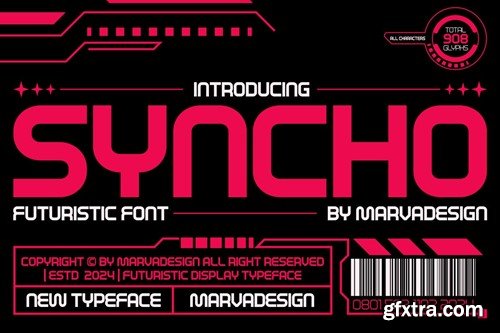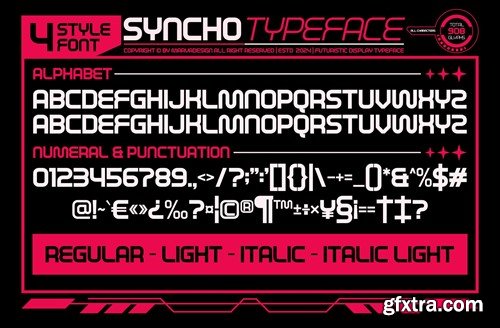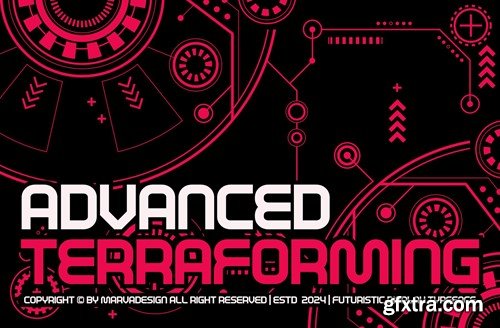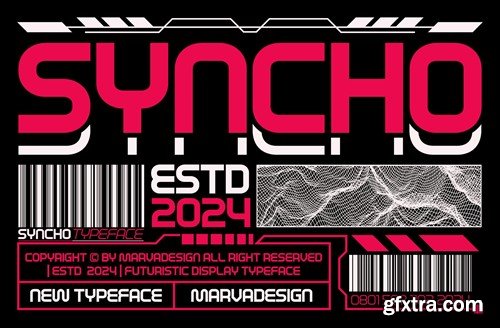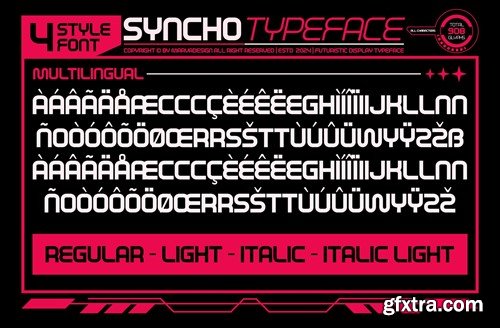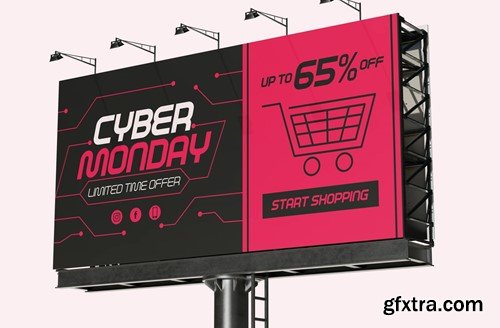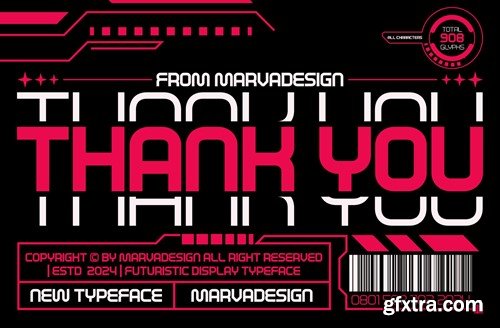
Synco - 一款现代未来主义字体 KC774AU
Syncho - A Modern Futuristic Font KC774AU
Syncho - A Modern Futuristic Font
Introducing our new product Syncho Font - A Modern Futuristic Font authentic display font. The font is suitable for any branding project like logo, Template Design, Product and many more. outstanding in a wide range of contexts.
• Uppercase
• Lowercase
• Multilingual
• Italic
• Light